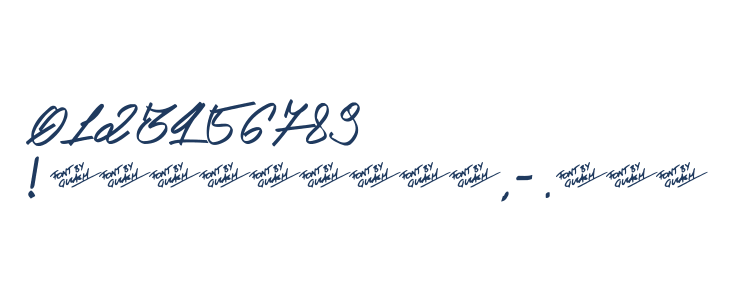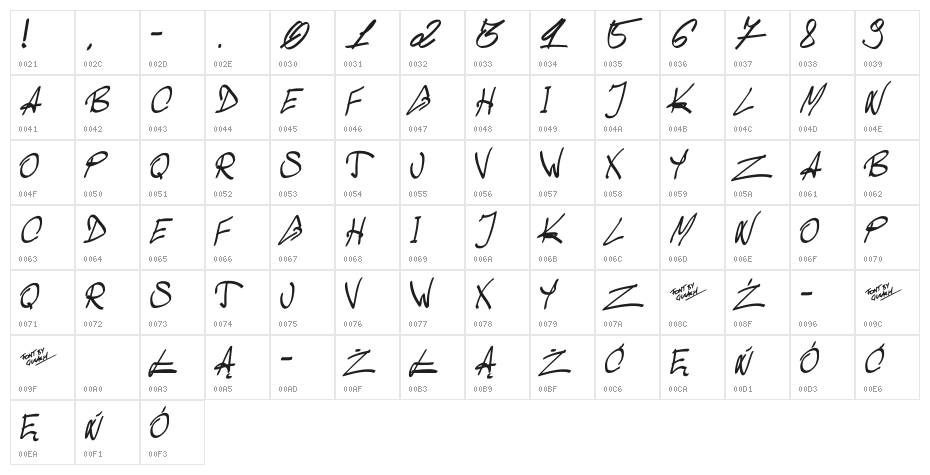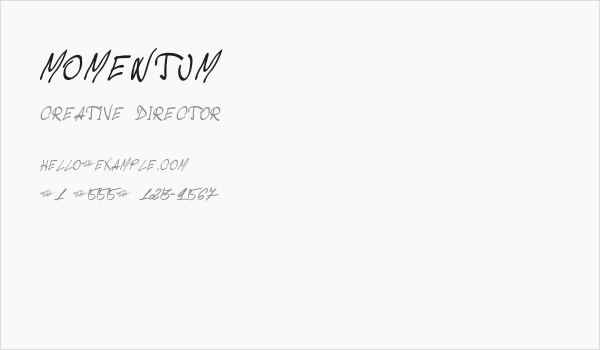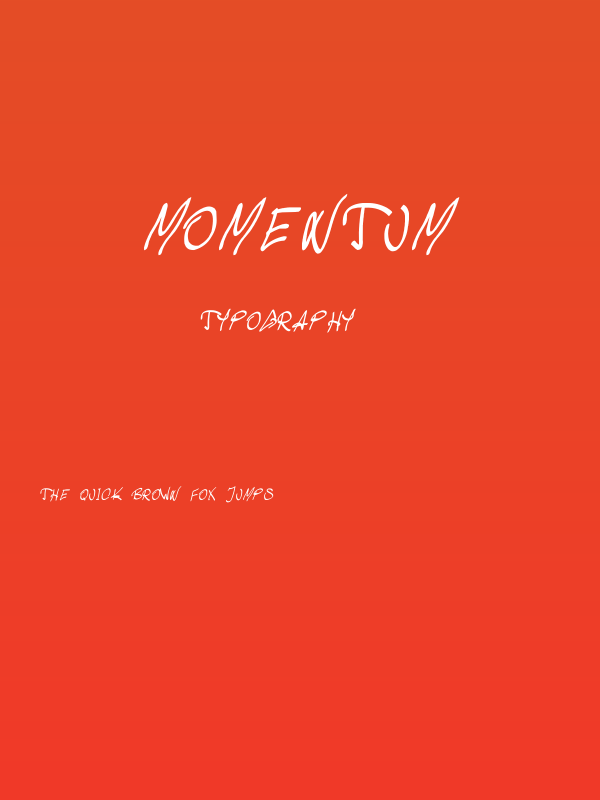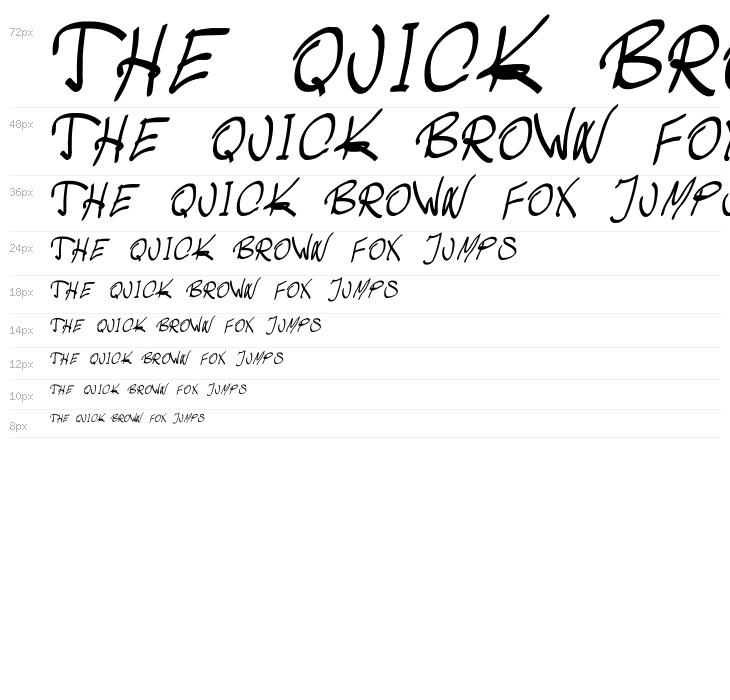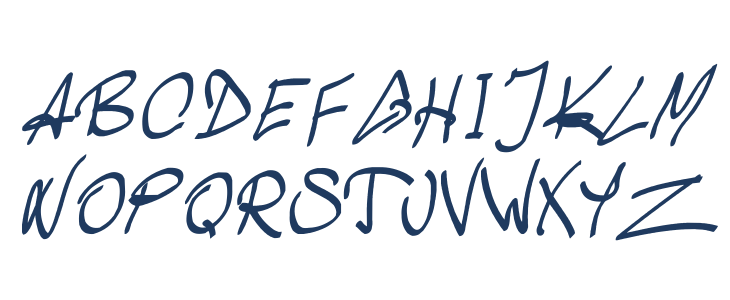
Momentum Font
Momentum Description
This font exhibits a dynamic and energetic style, characterized by its bold and expressive strokes. The letters are crafted with a sense of movement, giving them a handwritten, cursive appearance. The uppercase and lowercase letters maintain a consistent flow, with some letters featuring unique, artistic flourishes. The numbers and special characters are equally expressive, maintaining the overall aesthetic. This font is ideal for projects that require a personal touch or a sense of urgency and excitement.
| Proposed Projects | Ideal for branding, posters, invitations, and any design needing a personal, energetic touch. |